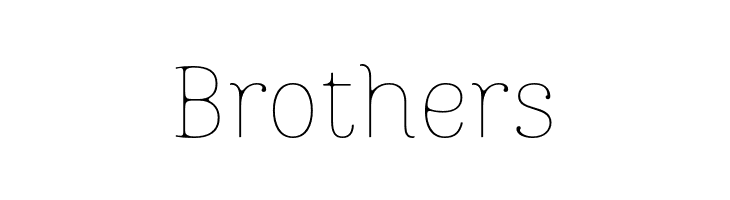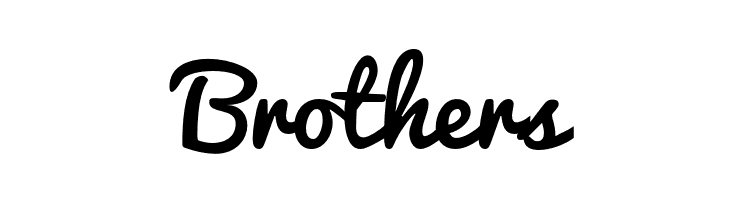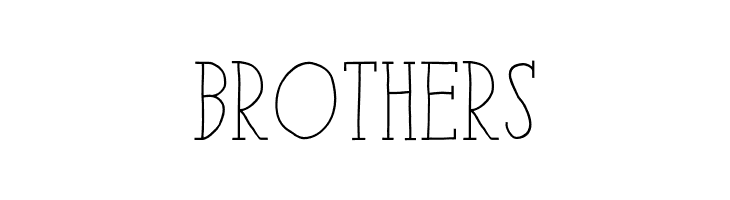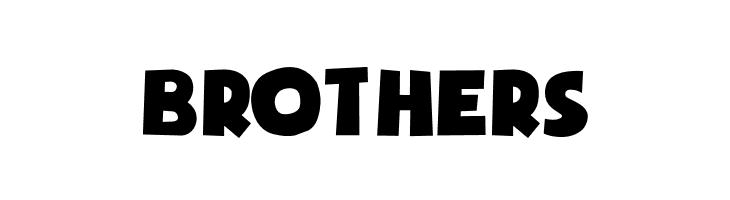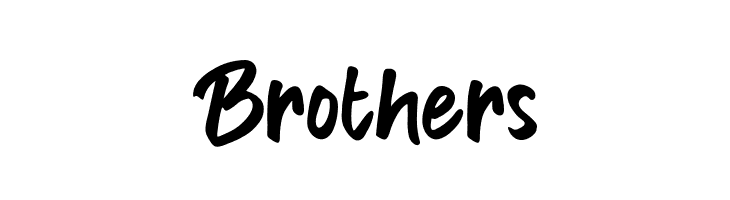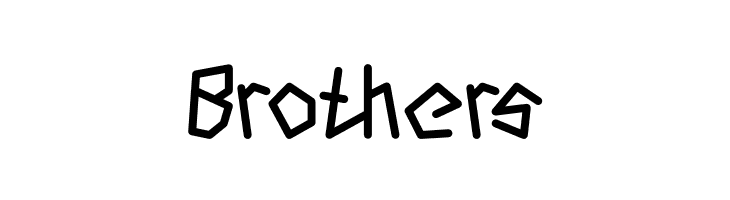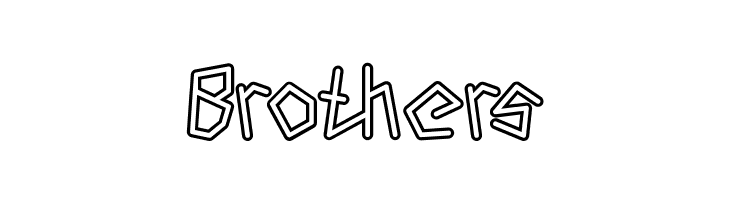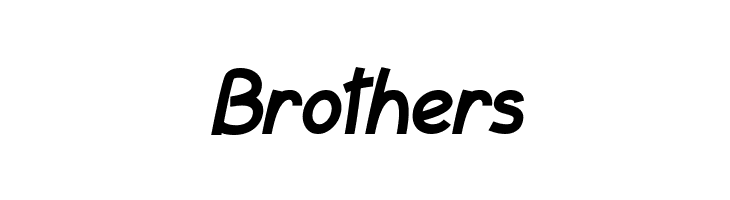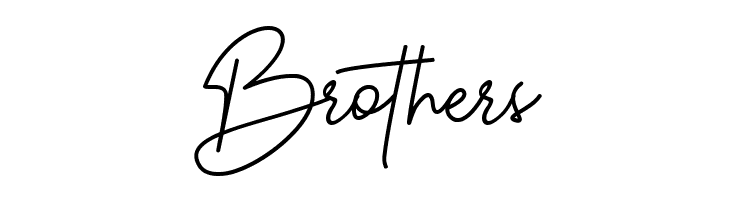
• iCielPacifico
• iCielParisSerif-Bold
• iCielRukola
• iCielSoupofJustice
• iCielZitroneFY
• ImprovisationsAboutK
Abstract, illustrative font with playful line art for each character.
• ImresFraktur
A classic blackletter font with ornate, gothic-inspired letterforms.
• InColhua Bold Italic
A bold, italicized font with a dynamic and modern style.
• InColhua Italic
A dynamic and flowing italic font with smooth curves and a modern style.
• InColhua Light Italic
A modern, light, and italicized font with a sleek and fluid style.
• IndianSummer
A bold, jagged, and artistic font with a dynamic and chaotic style.
• Indonesia Merdeka
( Fonts by Madatype Studio )
A bold, brush-style font with a lively, handwritten appearance.
• InGarden
Illustrative dingbat font with gardening and outdoor motifs.
• Ingenue
( Fonts by Md Shohail Bhuian )
A bold, playful font with rounded strokes and a friendly appearance.
• Innocent
A playful, handwritten font with irregular strokes and a casual style.
• Insane
• Insight Issue New
A bold, geometric font with a modern and strong presence.
• Inspyratta
A modern, geometric font with sharp angles and smooth curves, perfect for contemporary designs.
• Instant Karma
A bold, graffiti-inspired font with an expressive, hand-painted style.
• Insurgence
( Fonts by Kong Font )
A bold, angular font with a geometric and edgy style.